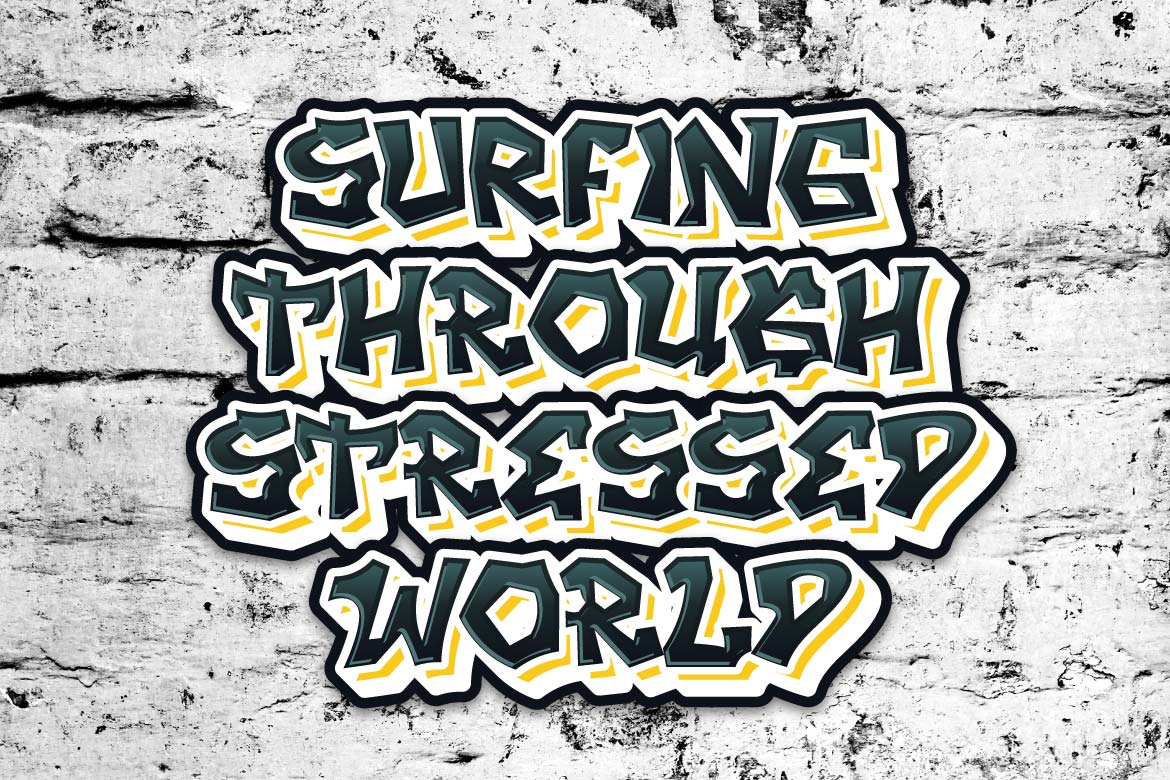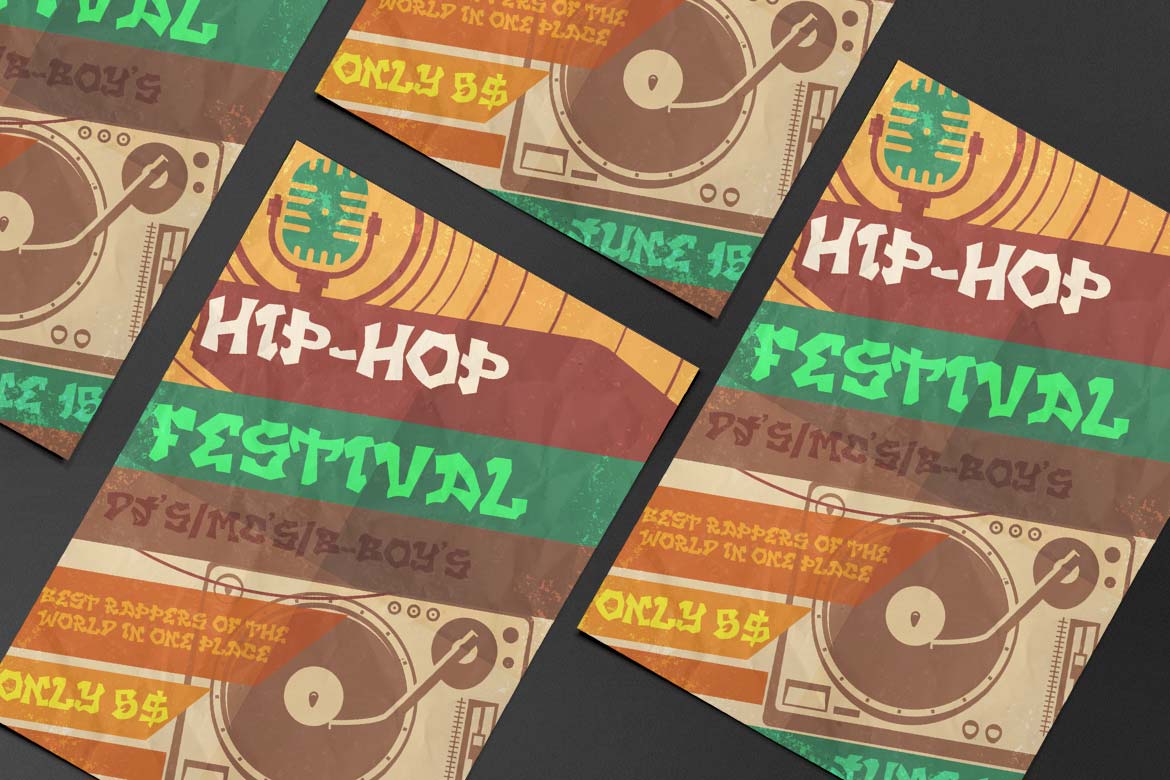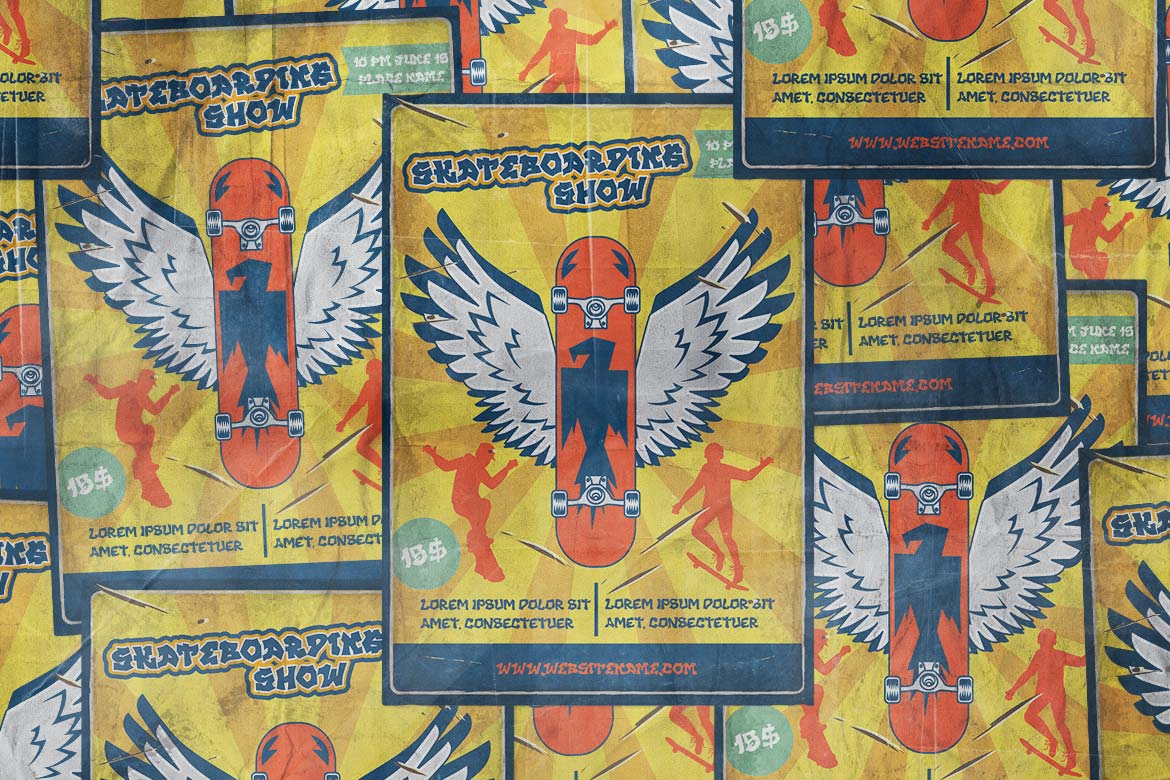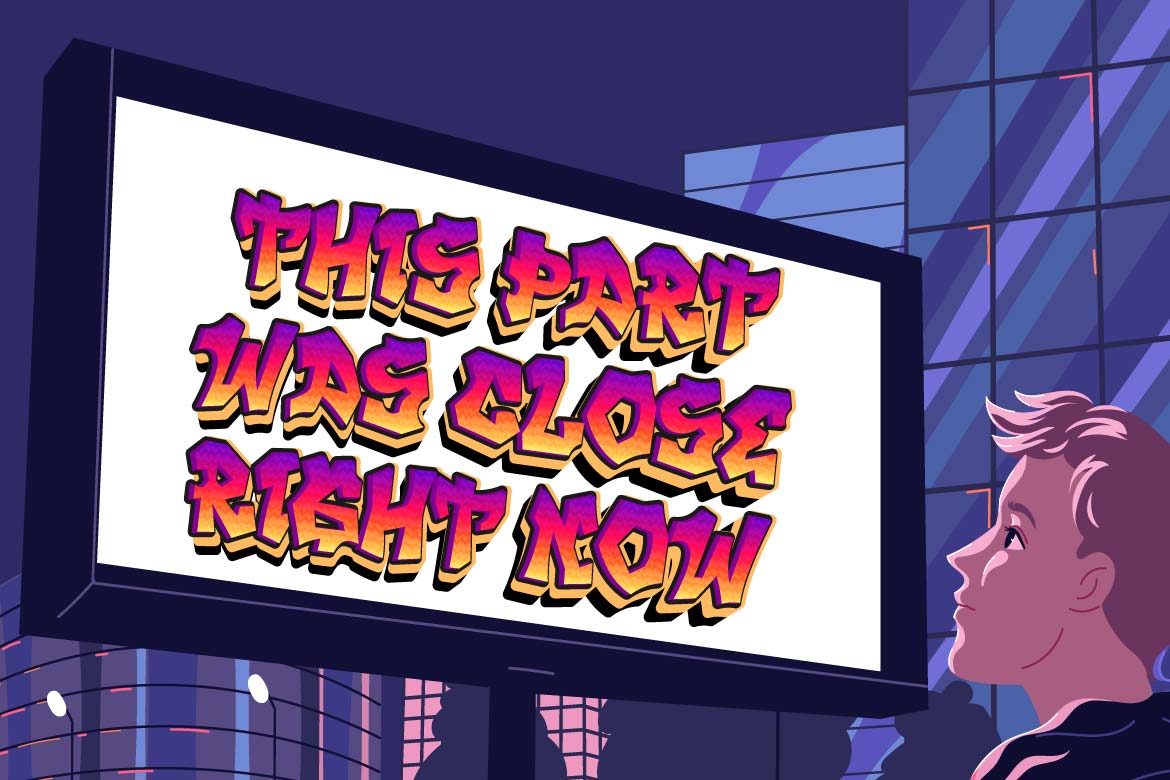
KINGER Font
KINGER Display Font
This font is great for product logos, poster titles, headlines, packaging, film titles, logotypes, gorgeous writing, and trendy graffiti designs, among other things.
Of course, if you utilize this font in your numerous creative projects, they will be perfect and outstanding. Use this typeface right away for your one-of-a-kind and remarkable projects.